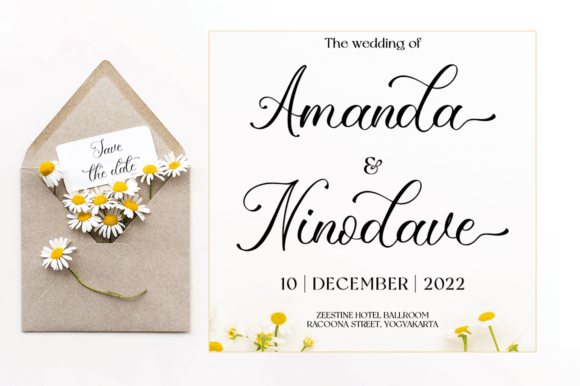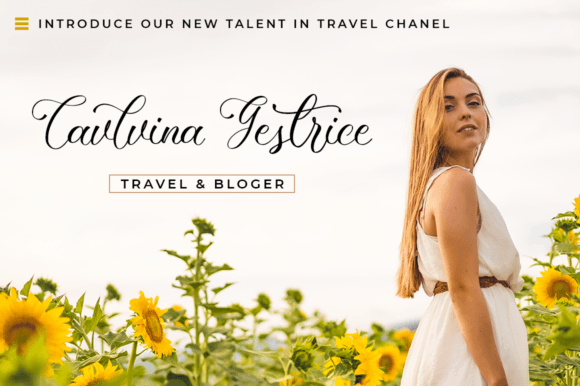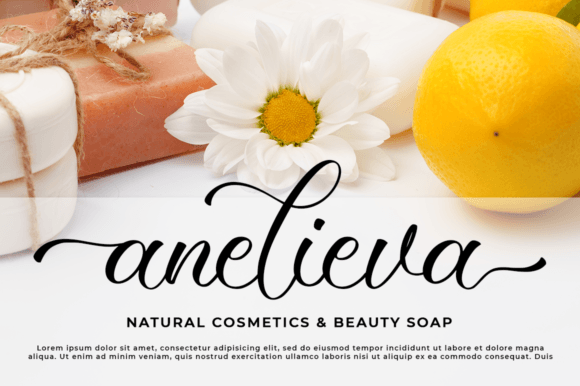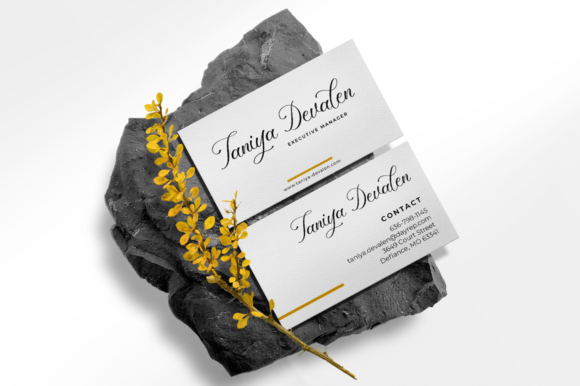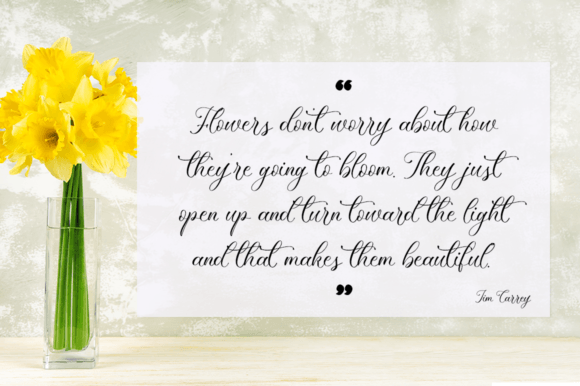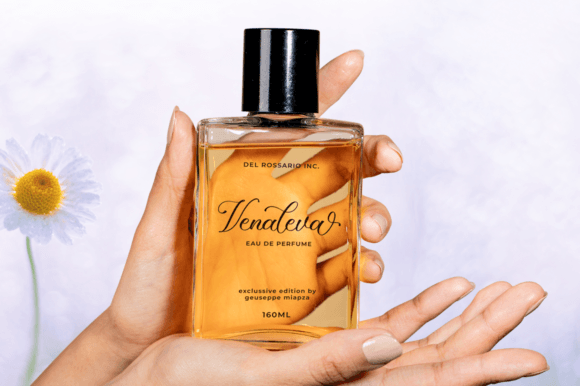
Introducing Devalani Font: Elevate Your Designs with Elegance
In the world of typography, a font can make or break a design. For crafters, designers, and anyone looking to add a touch of sophistication to their projects, the Devalani Font is a game-changer. This elegant handwritten font is not only gorgeous but also distinct, making it perfect for a wide range of applications.
The Beauty of Devalani Font
Devalani Font is a stunning example of handwritten typography. Its elegant strokes and beautiful letterforms make it an ideal choice for designs that require a personal touch. Whether you’re working on wedding invitations, thank you cards, quotes, greeting cards, logos, or business cards, Devalani Font is sure to impress.
What Makes Devalani Font Special?
One of the standout features of Devalani Font is its PUA (Private Use Area) encoding. This means that you can access all of the glyphs and swashes with ease, giving you complete creative control over your designs. With Devalani Font, you can:
- Add a touch of elegance to your wedding invitations and save the dates
- Create stunning quotes and social media graphics
- Design beautiful greeting cards for any occasion
- Develop a unique brand identity with custom logos and business cards
Why Choose Devalani Font?
With so many fonts available, why choose Devalani Font? Here are just a few reasons:
- Elegant and Distinct: Devalani Font is a truly unique and elegant handwritten font that will set your designs apart
- Versatile: Use Devalani Font for a wide range of projects, from wedding stationery to business branding
- Easy to Use: With PUA encoding, you can access all of the glyphs and swashes with ease, making it simple to create stunning designs
- High-Quality: Devalani Font is a high-quality font designed with attention to detail, ensuring that your designs look professional and polished
Tips for Using Devalani Font
To get the most out of Devalani Font, here are a few tips:
- Pair with Other Fonts: Combine Devalani Font with other fonts to create a unique and interesting design
- Experiment with Colors: Try out different colors and textures to add depth and interest to your designs
- Use Swashes and Glyphs: Take advantage of the PUA encoding to add custom swashes and glyphs to your designs
If you’re looking for a font that will elevate your designs and add a touch of elegance, look no further than Devalani Font. With its beautiful handwritten letterforms, PUA encoding, and versatility, Devalani Font is the perfect choice for crafters, designers, and anyone looking to create stunning designs.